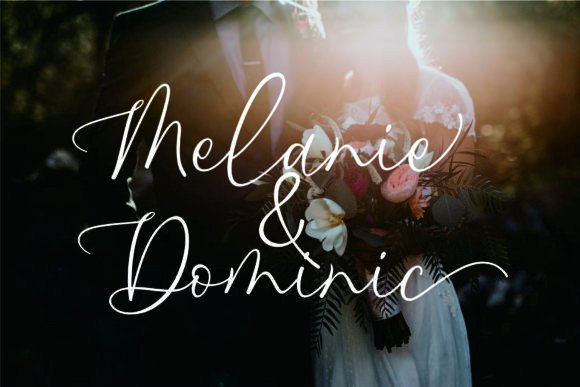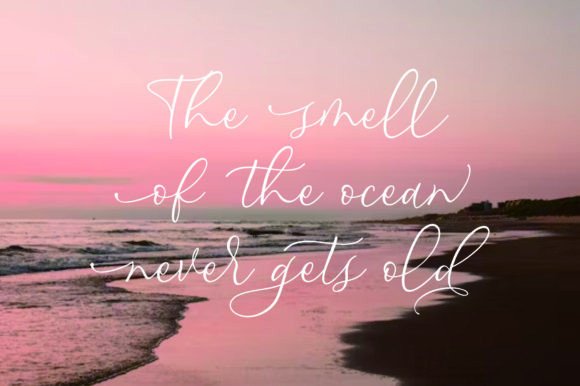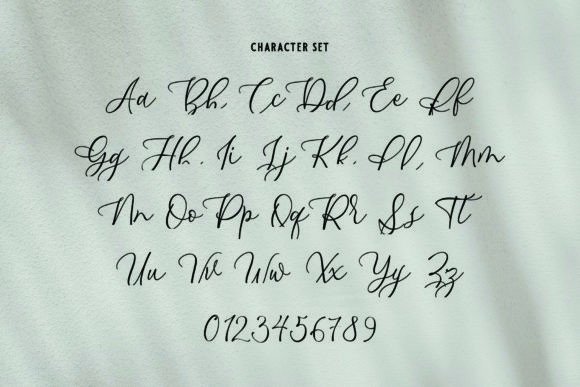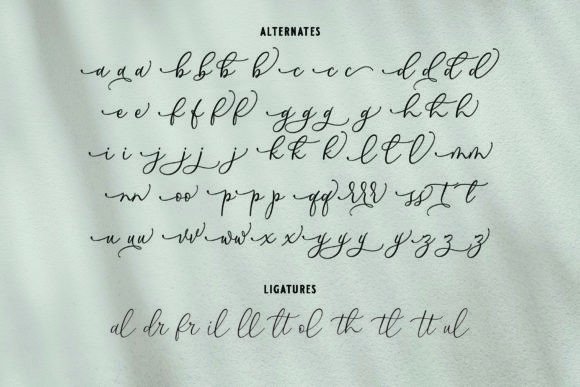
Introduction to Palmeyra Font
Remember that moment when you’re brainstorming ideas for your next creative project, and you stumble upon the perfect font to elevate your design? For many designers, this moment is pure magic. The right font can make all the difference in capturing the essence of your message and leaving a lasting impression on your audience.
That’s where the Palmeyra Font comes in – a modern, casual, and feminine handwritten script that’s perfect for a variety of projects. With its high-quality design and extensive language support, Palmeyra Font is a valuable addition to any designer’s toolkit. Whether you’re working on a free download for a client or creating a business card with a transparent background, this font is sure to impress.
With its unique character and extensive features, the Palmeyra Font is an excellent resource for designers looking to add a touch of elegance to their work. In this article, we’ll dive deeper into the world of Palmeyra Font and explore its many benefits for your next creative project.
Key Features of Palmeyra Font
- High-quality, modern design ideal for creative projects
- Includes a range of characters, including uppercase and lowercase letters, numbers, and symbols
- Suitable for a variety of design applications, from digital graphics to print materials
Honest Review: Palmeyra Font
I recently had the chance to work with the Palmeyra Font for a creative project and I must say it’s been a pleasant experience. The font’s high quality is evident from the first glance, making it a great addition to any design resource.
The Palmeyra Font features a transparent background, allowing it to blend seamlessly with any design. Its elegant and modern design makes it perfect for a variety of creative projects, from branding to editorial content.
- ✨ High-quality design that’s perfect for professional projects
- ✨ Transparent background for easy design integration
- ✨ Great for creative projects, including branding, editorial content, and more
- ⚠️ Limited character set, may not be suitable for projects requiring extensive text
- ⚠️ Some users may find the font too elegant, making it difficult to read at smaller font sizes
The Palmeyra Font is a high-quality, versatile font perfect for any creative project. Its transparent background and elegant design make it an ideal choice for designers looking for a unique and eye-catching design resource.
Common Use Cases for Palmeyra Font
- Website headers and footers
Yes, the Palmeyra Font features a transparent background, allowing for seamless integration with other design elements. This makes it an ideal choice for designers working on high-quality projects that require a clean and modern aesthetic.